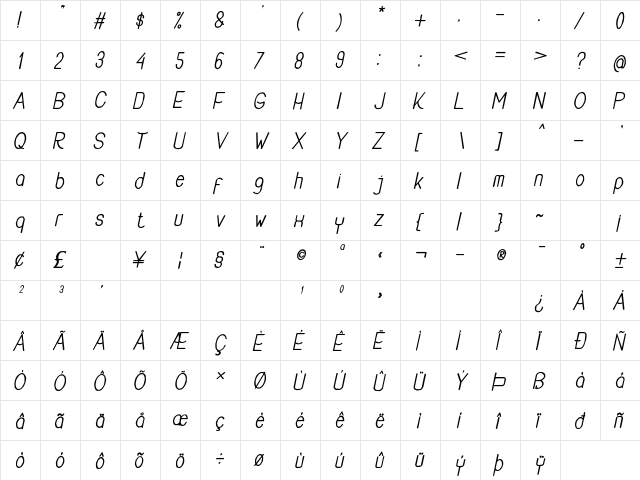
Buon Umore Rough Bold Italic Bold Italic
Design Context for Buon Umore Rough Bold Italic Typeface
Buon Umore Rough Bold Italic embraces imperfection — its rough, textured character adds raw authenticity to designs that want to feel lived-in and unconventional. Its italic angle brings a sense of urgency and motion to the letterforms.
A strong fit for alternative music projects, graffiti-adjacent design, and anything that deliberately resists polish.
Pro Tip: Use Buon Umore Rough Bold Italic at larger sizes where the texture and irregularity of each letterform can be clearly seen — it loses its character at small sizes.